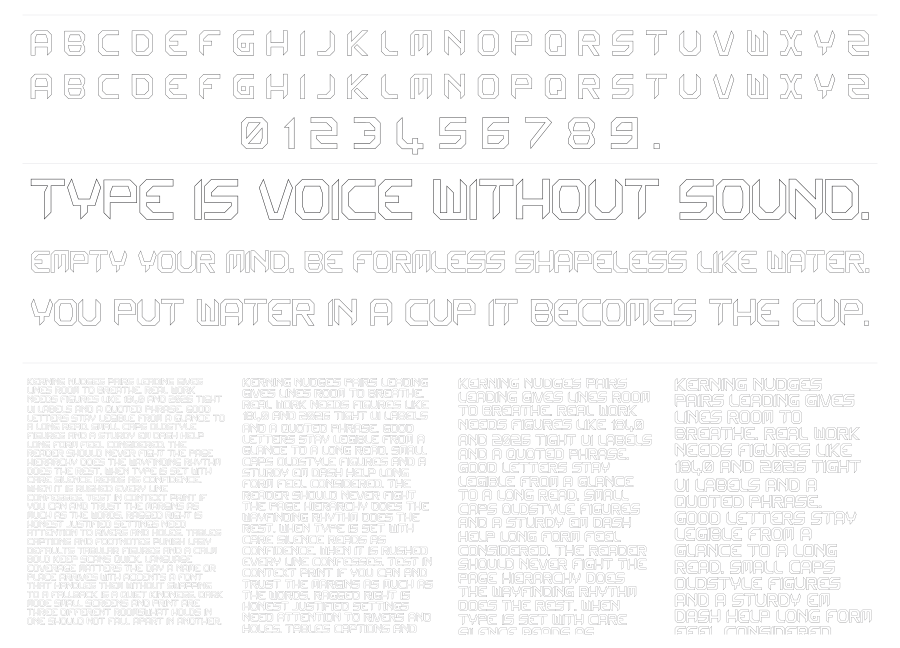
NewHope
NewHope is a bold geometric outline font built around angular, faceted letter shapes with chamfered corners and a strong retrofuturist sci-fi spirit. Every character reads like it was carved from the hull of a spacecraft, evoking the iconic title treatments of late-1970s space opera cinema. It commands attention at large sizes and carries an unmistakable sense of adventure and scale.